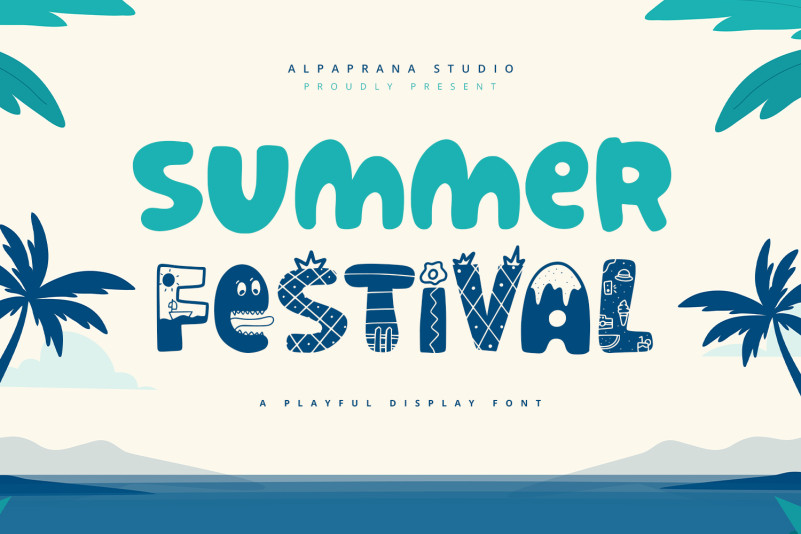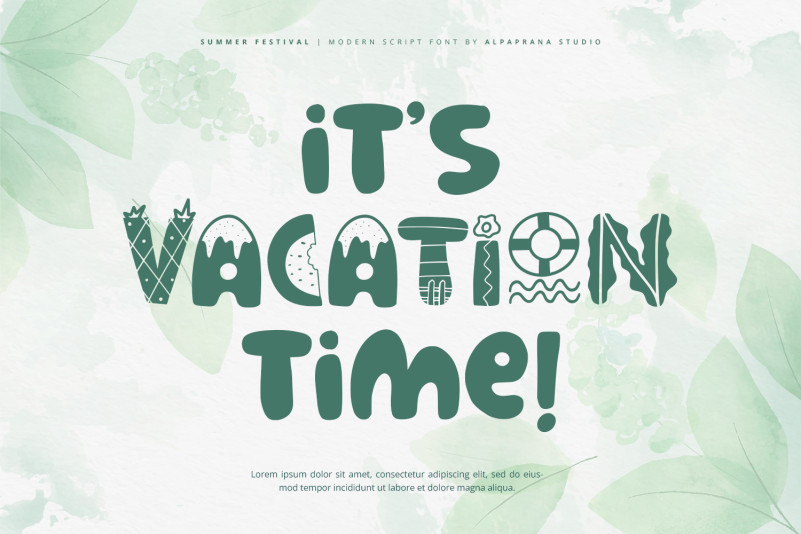
Summer Festival Font
Summer Festival Display Font is a playful display font with authentic and playful feels. It will be perfectly used for Branding, Logo Design, Lettering, Logotype, Clothing, Poster, magazine, packaging, posters, shopping bags, t-shirts, book covers, photography, special events and other design project.